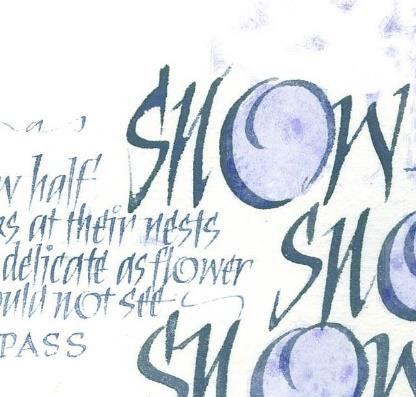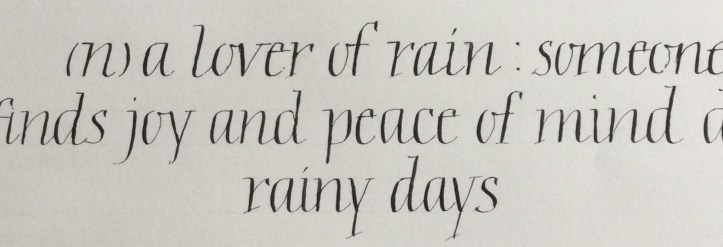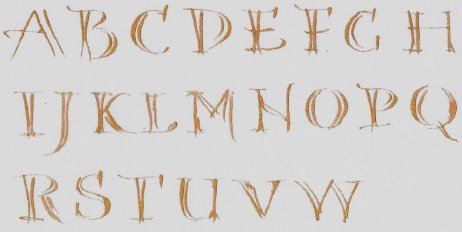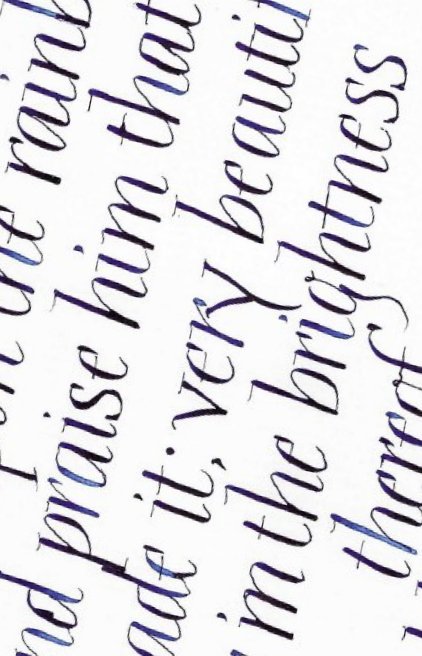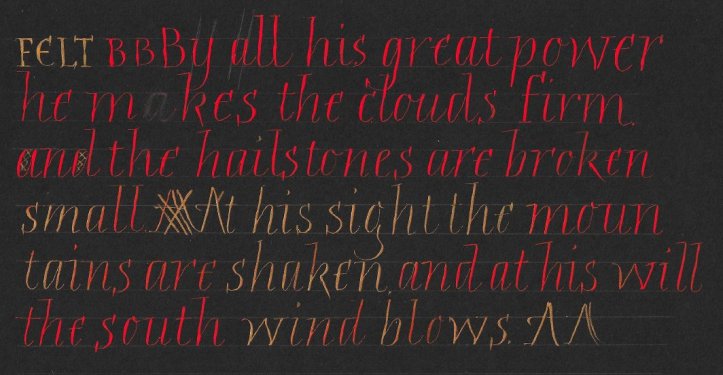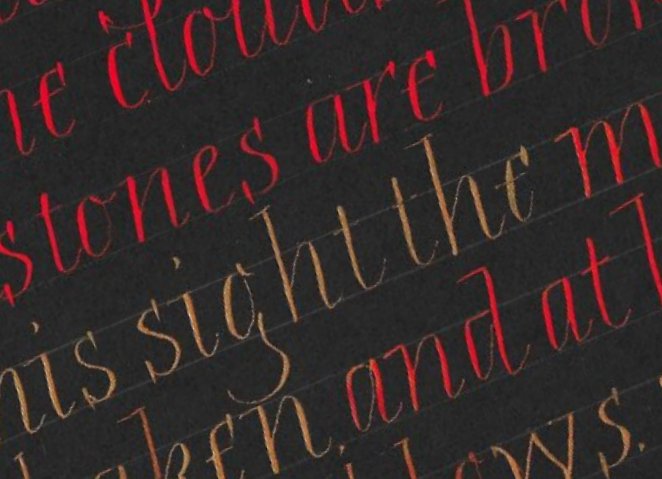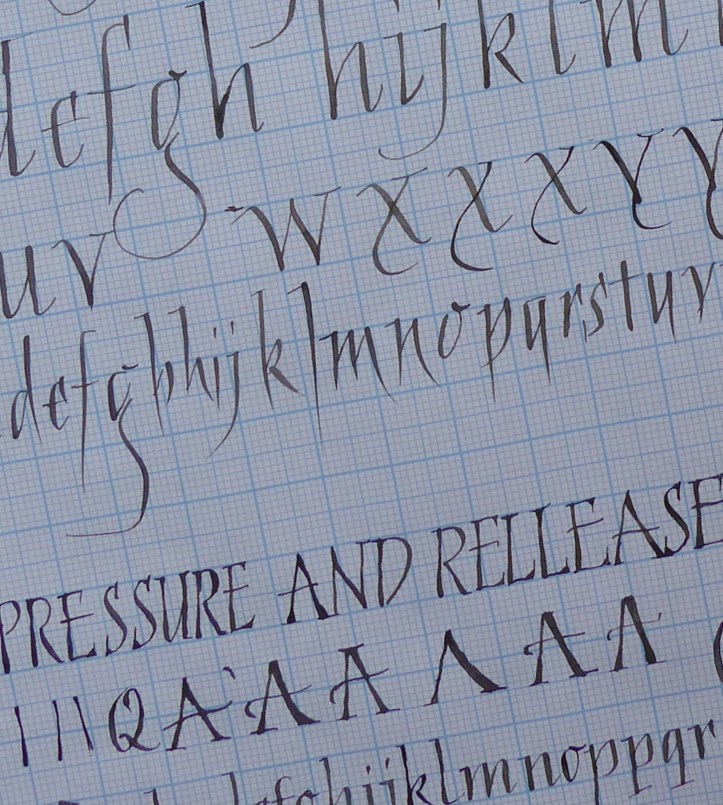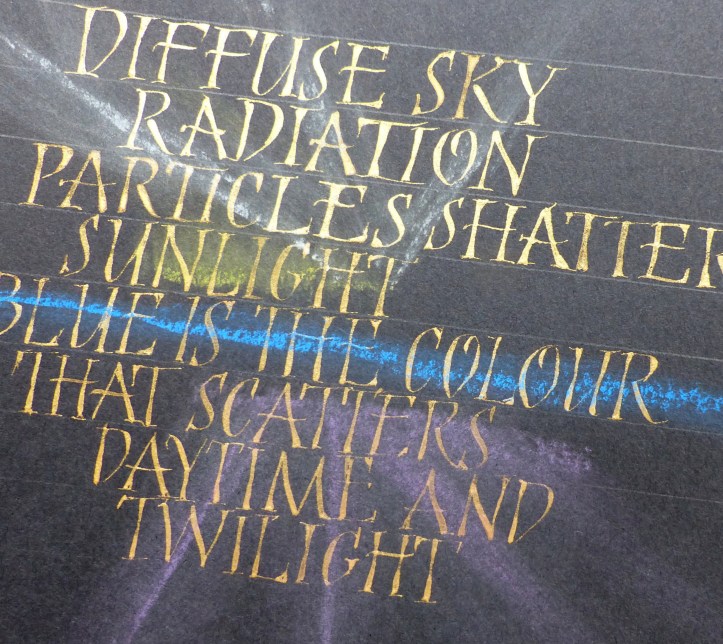
We had such a good time with Mary – friendly but firm advice about still minding our Italic arches and forms as we now tried pointed pens with pressure and release. We were reminded to keep the nib-holder pointing at us, not off to the side, to draw the nib towards you. Otherwise, you might apply too much pressure to one side of the pointed nib and wear it away unevenly. That will make it scratch unforgivingly. And if you do hear it scratch then you must pay attention (!) and give that nib the heave-ho. Don’t ignore it because it will sputter on the fine upstroke and probably splay out on the downstoke, not releasing the ink properly. And some of us related later that we had indeed needed to change an old nib. One technique is to hang the minuscule forms from the top line and allow the nib to lift off as the pressure is released, resulting in a pleasing irregularity and impression of speed. We watched Mary write capitals with extra strokes top and bottom to thicken up the form ever so slightly for that elegant touch, with beautiful thin serifs. Quick double strokes give an open versal effect too. A little pastel helps lift the piece. Some shading in the negative space is not only effective as decoration but will quickly show how you are managing with spacing and help train your eye.